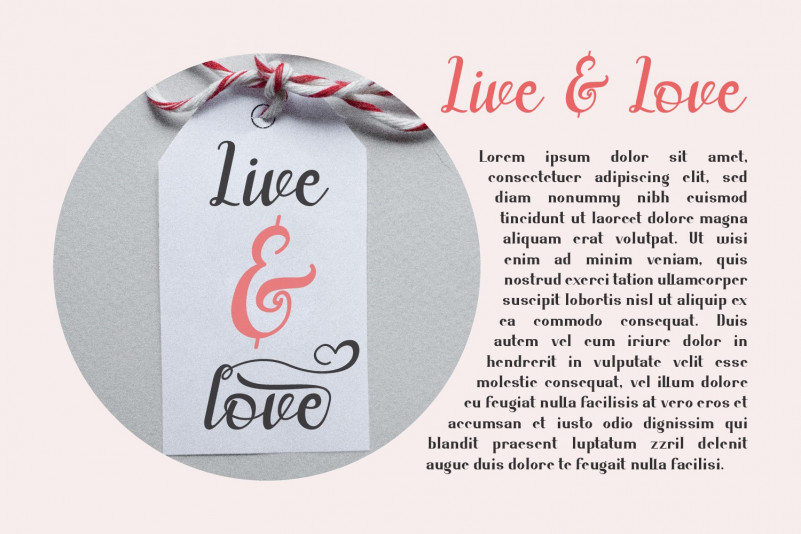
Bulgary Script Font
bulgary font is an exclusive beautiful script font, with several characters representing the symbol of love, perfect for a variety of editing purposes.
This font itself is complete, plus several ligatures and other alternative characters.